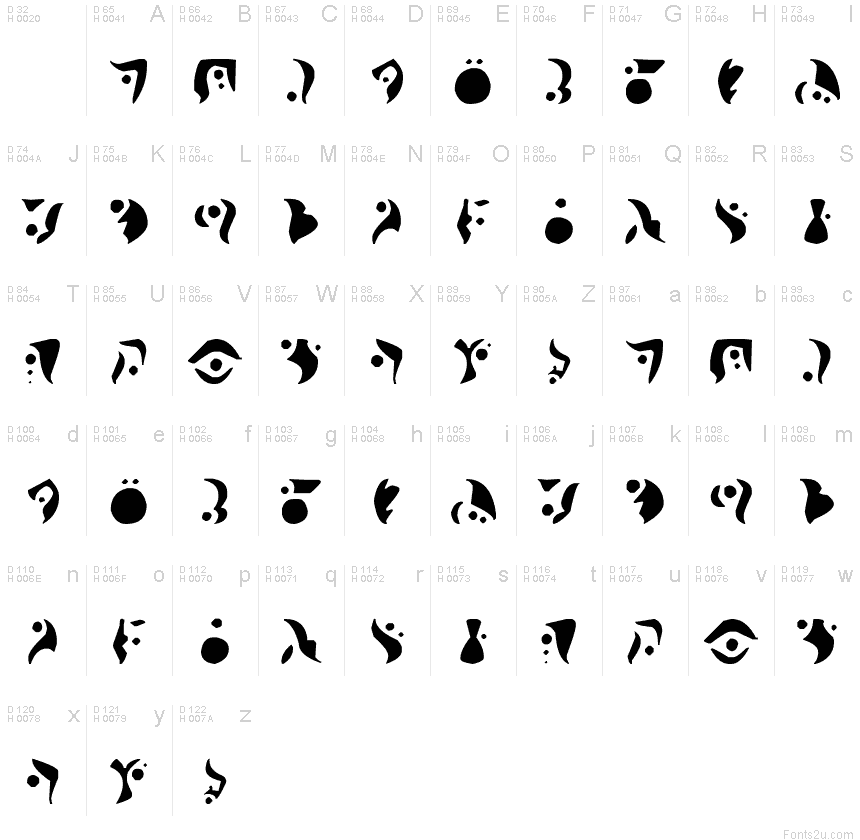
Precursors is a free alien glyph font with an imposing set of abstract, code-like symbols. Broad black masses shift between swollen curves, hooked cuts, and sharp wedges, often broken by round holes or small floating marks. The uneven silhouettes make the system look ceremonial and technological at once.
It can turn a game title or film graphic into a fragment of extraterrestrial communication. Album artwork and science-fiction posters suit its dense shapes, treating the symbols as signals, seals, or interface markings. It speaks most directly to speculative entertainment designers, helping establish an unfamiliar culture before the story begins.